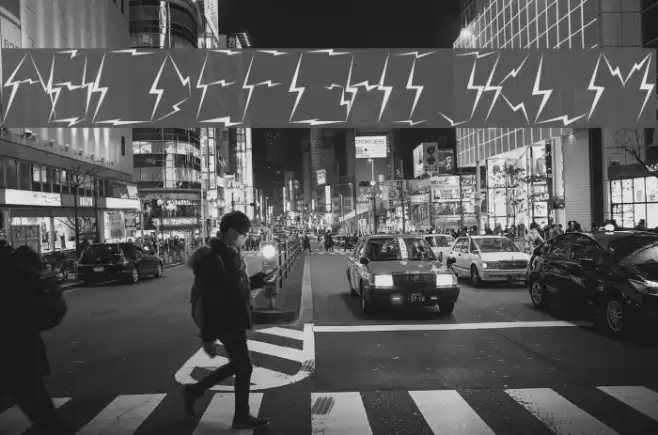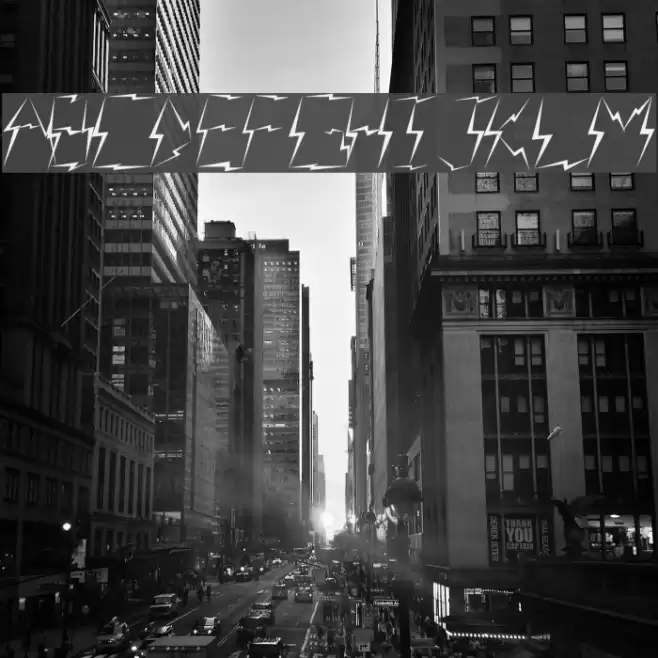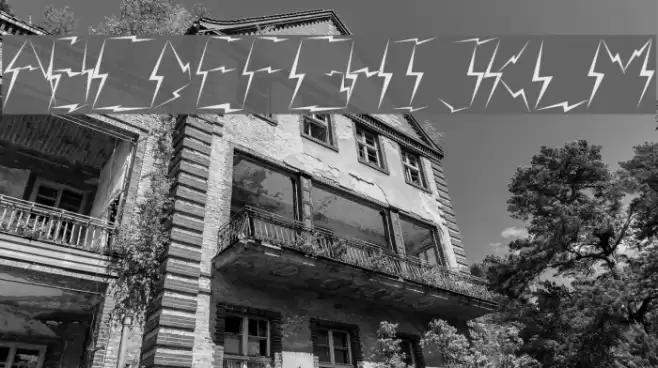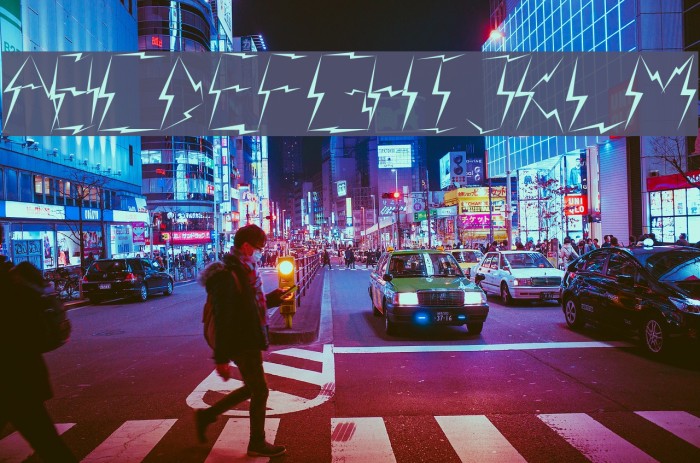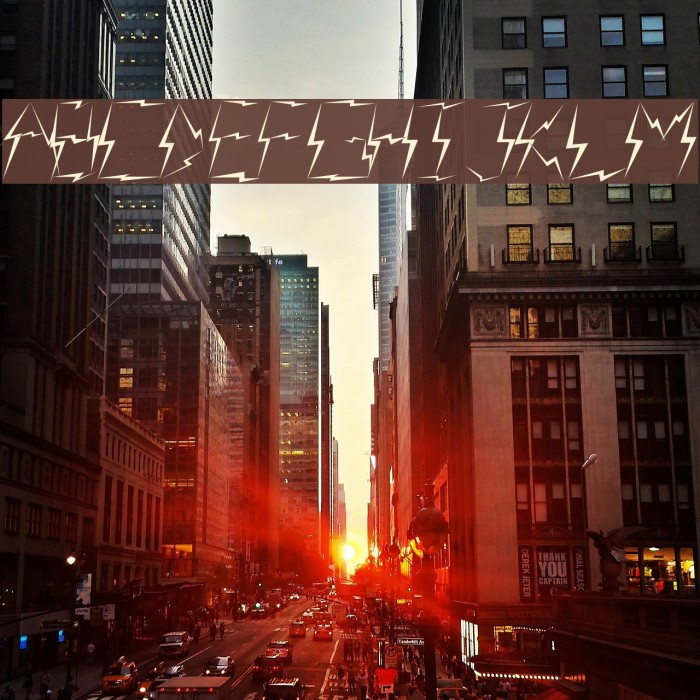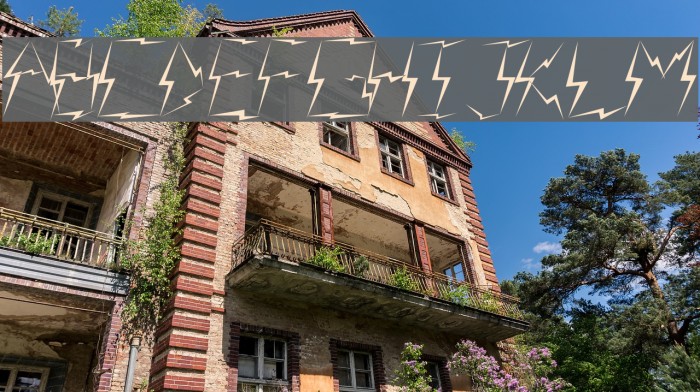
Lightning raid Font
Lightning raid Description
This font features a bold and electrifying design, characterized by sharp, jagged edges that mimic the appearance of lightning bolts. The uppercase letters are dynamic and angular, conveying a sense of energy and movement. Each character is uniquely crafted to maintain a consistent theme of electricity and power, making it stand out with its striking visual impact. The font lacks lowercase letters and numerals, focusing solely on uppercase characters and a few special symbols. Its distinctive style is perfect for projects that require a bold and attention-grabbing typeface.
A bold, lightning-inspired font with sharp, jagged edges from Uncategorized fonts.
- Proposed Projects: Ideal for music album covers, event posters, and branding for energy drinks or sports teams.